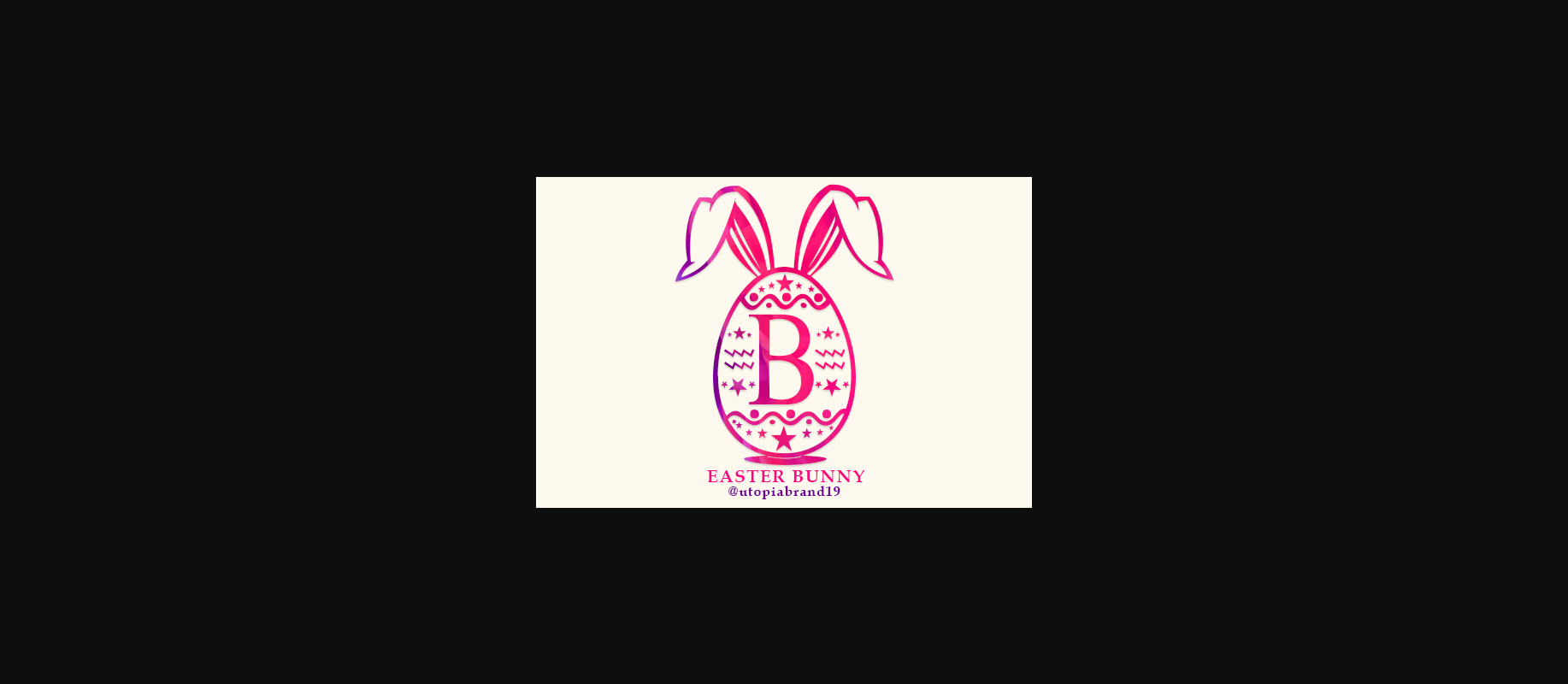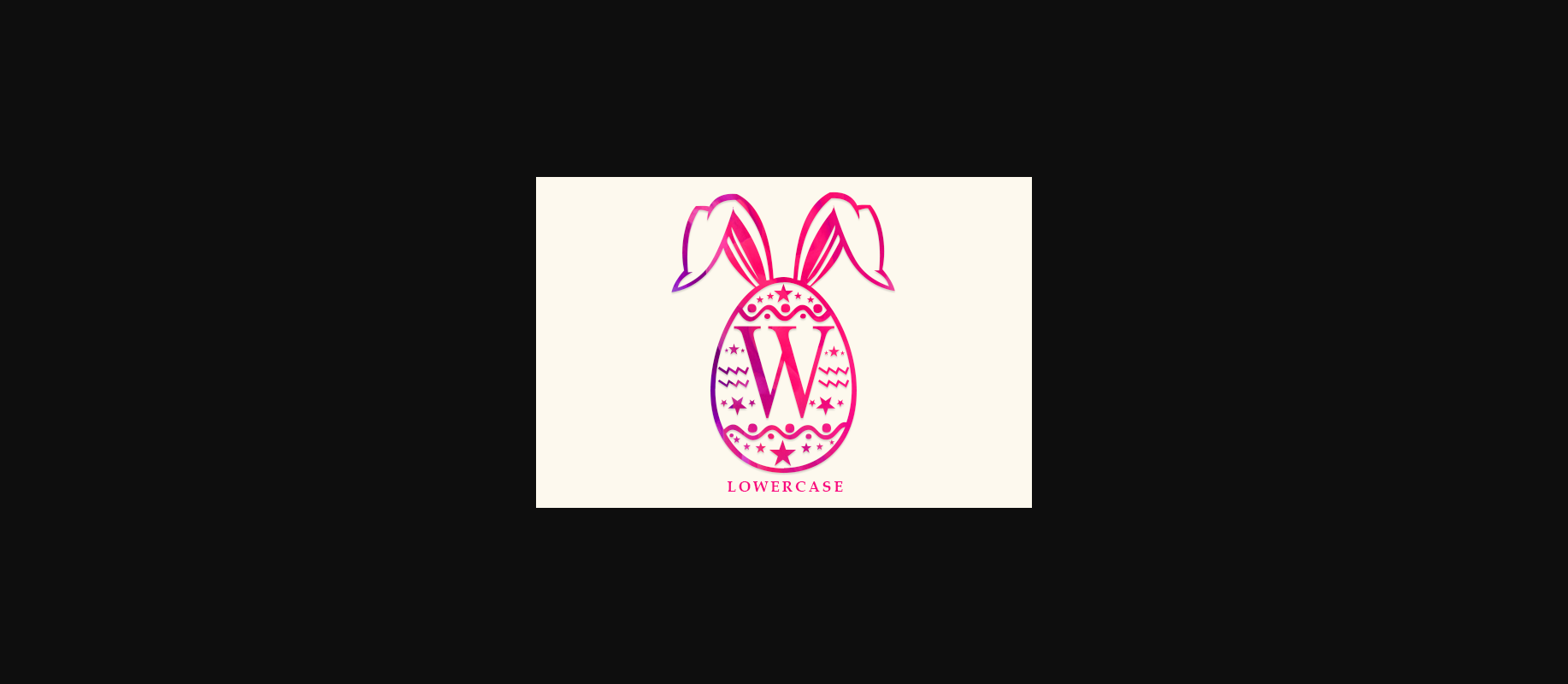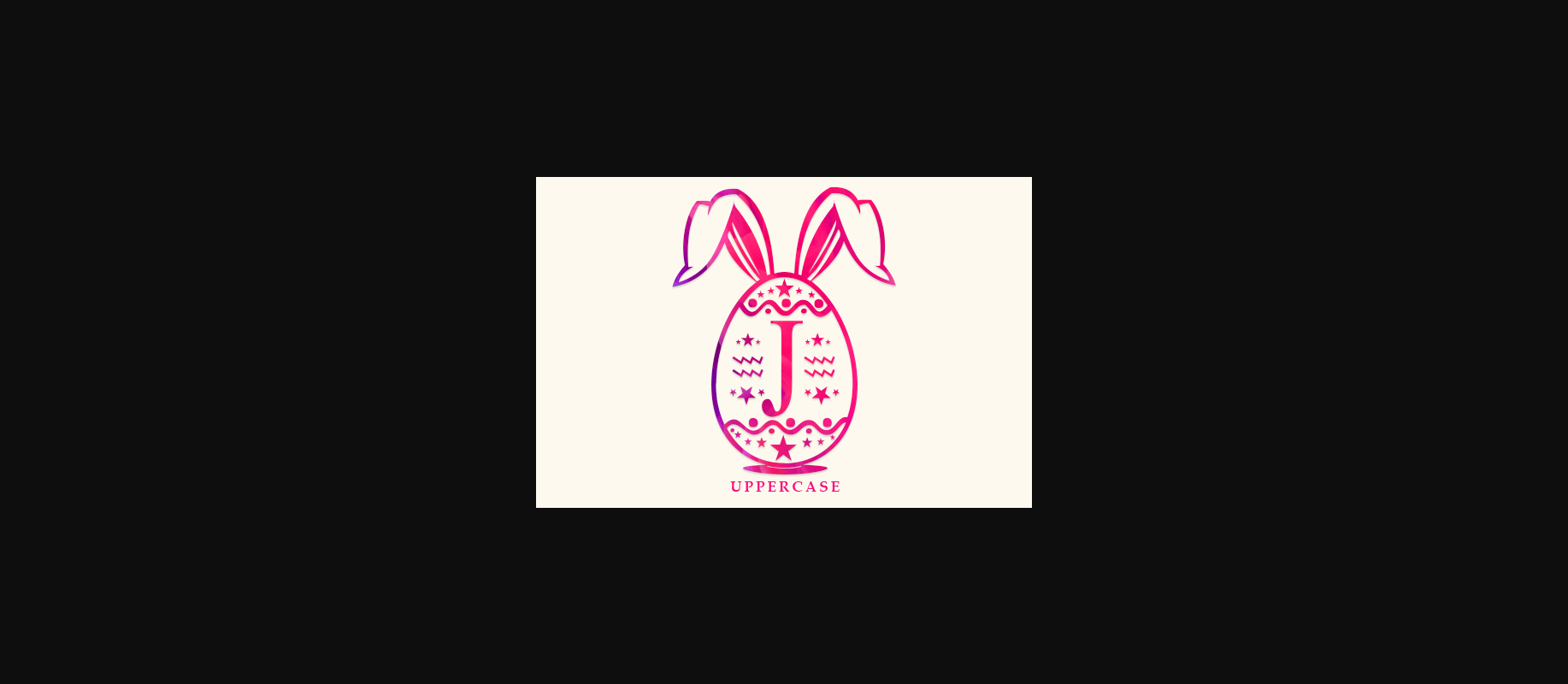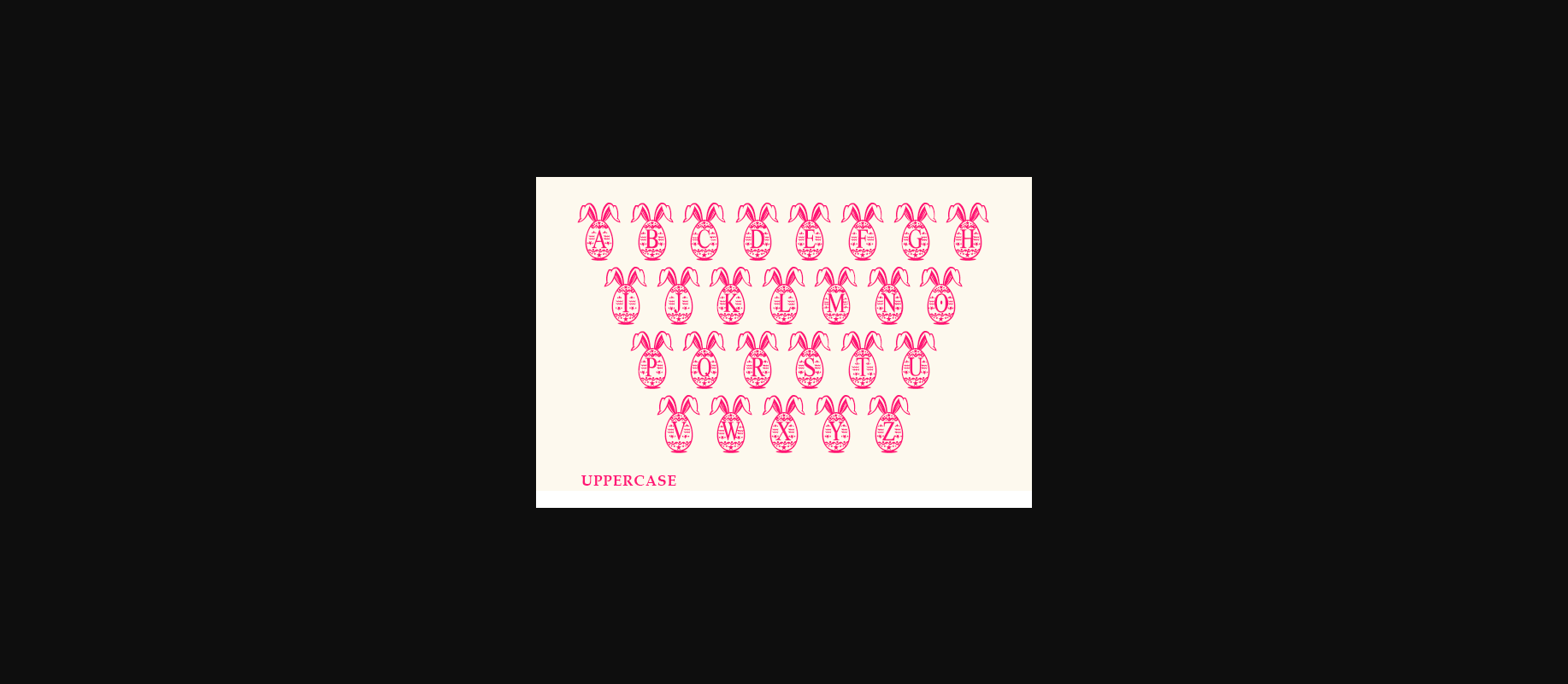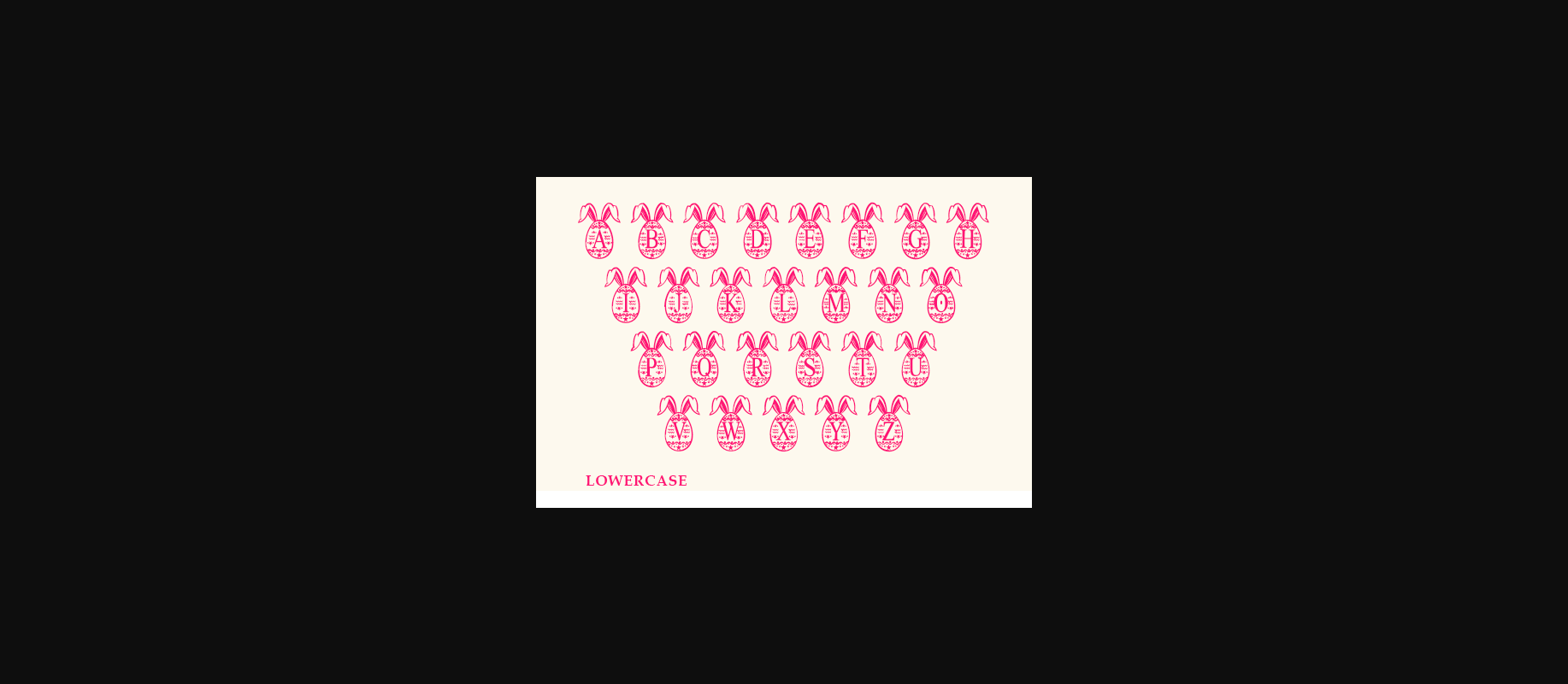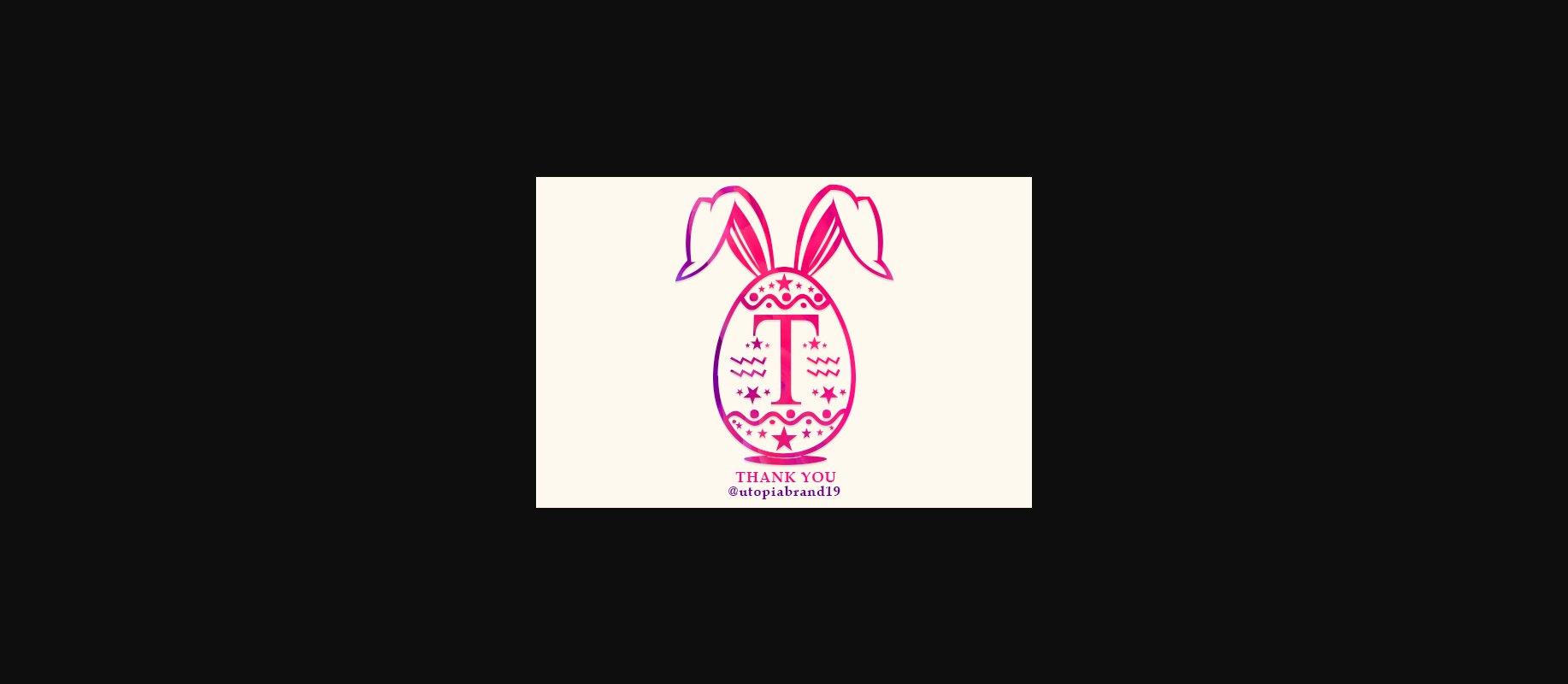
Easter Bunny Monogram Font
About Easter Bunny Monogram Font
Easter Bunny Monogram is an Easter Holiday themed decorative font. Use this font for any crafting project that requires a personalized look!